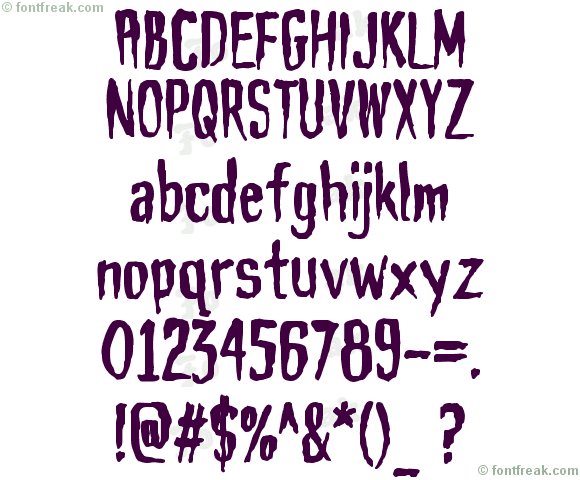
Haunt AOE
About Haunt
Introducing the Haunt font by Astigmatic One Eye, a distinctive display typeface that captures the essence of the eerie and whimsical. Created in 1998, this freeware font combines a playful yet haunting aesthetic, making it ideal for various creative projects. The Haunt font showcases a unique visual style characterized by its irregular, elongated letterforms, which feature a mix of thick and thin strokes that create a striking contrast. The imperfect spacing between characters adds a touch of spontaneity, while the decorative elements, reminiscent of spooky themes, enhance its captivating charm.
The Haunt font is perfect for a range of use cases, making it a versatile choice for designers and creators. It shines brightly in Halloween-themed graphics, where its playful eeriness can evoke the spirit of the season. Additionally, it works wonderfully for movie posters, particularly in the horror genre, where the font's distinctive style can draw in an audience. It can also elevate restaurant menus, especially for eateries with a quirky or thematic atmosphere. Furthermore, the Haunt font is an excellent choice for children's book covers or illustrations, where its whimsical nature can spark imagination and delight.
What sets the Haunt font apart is its ability to blend whimsy with a hint of spookiness, making it an unforgettable choice for those looking to create memorable visuals. With the Haunt font free download available, unleashing your creativity has never been easier. Embrace the unconventional and let your designs tell a story that lingers in the imagination.